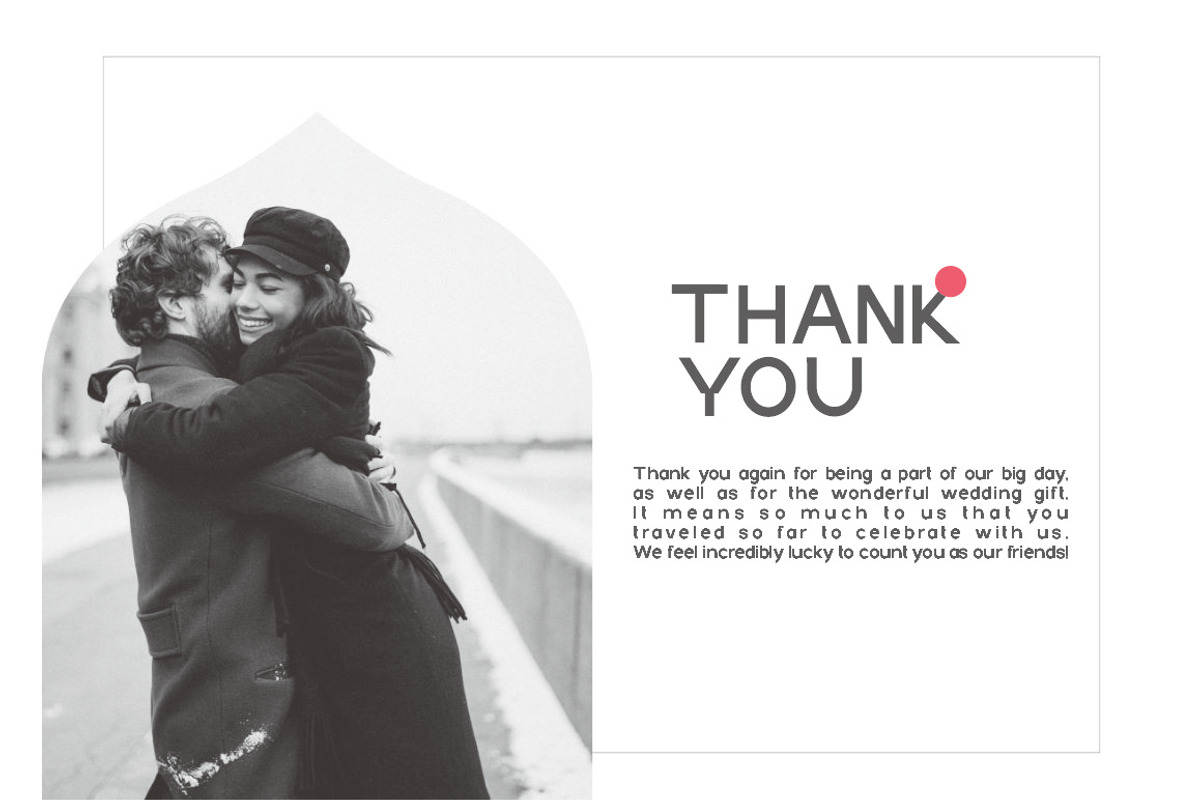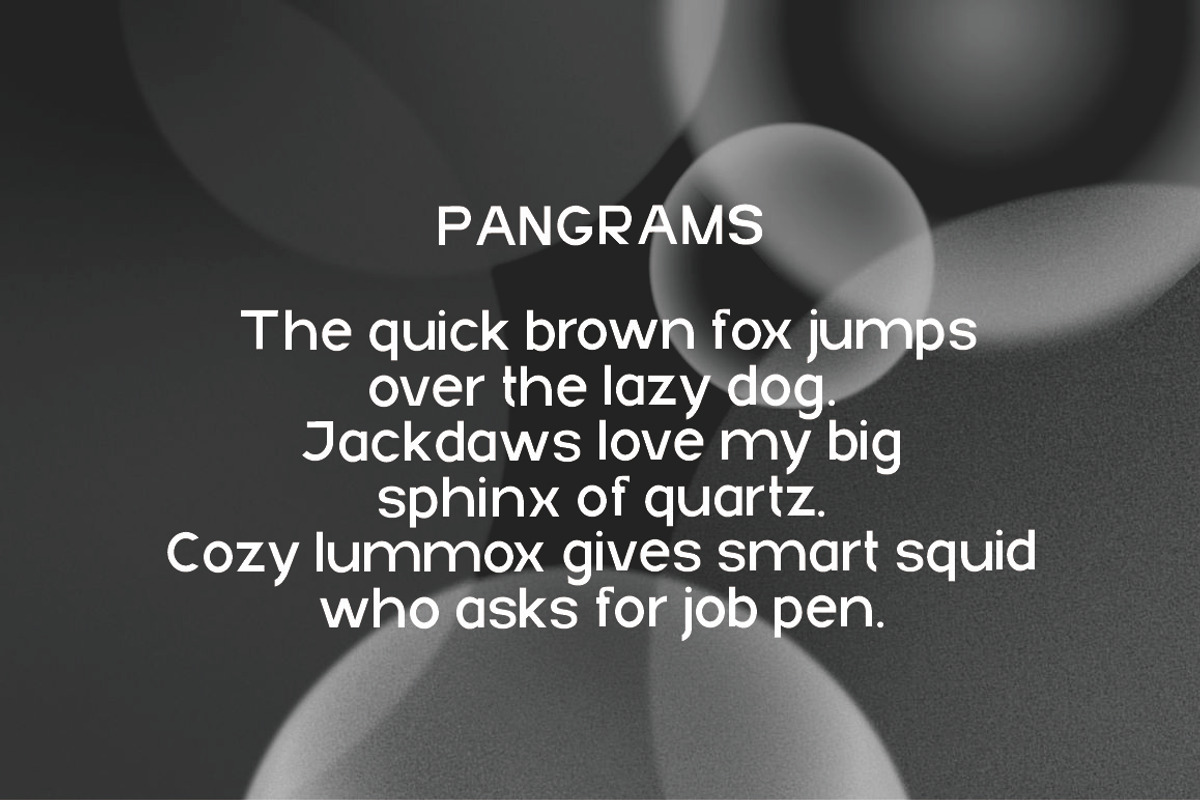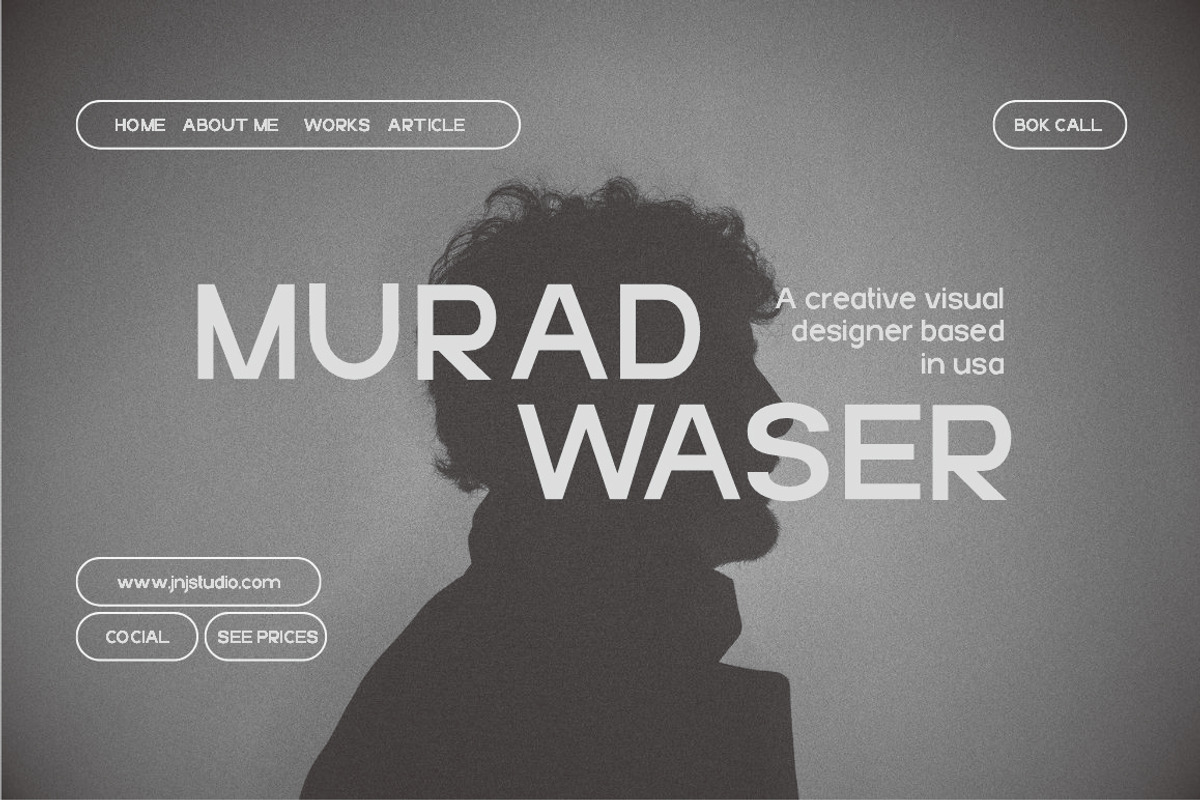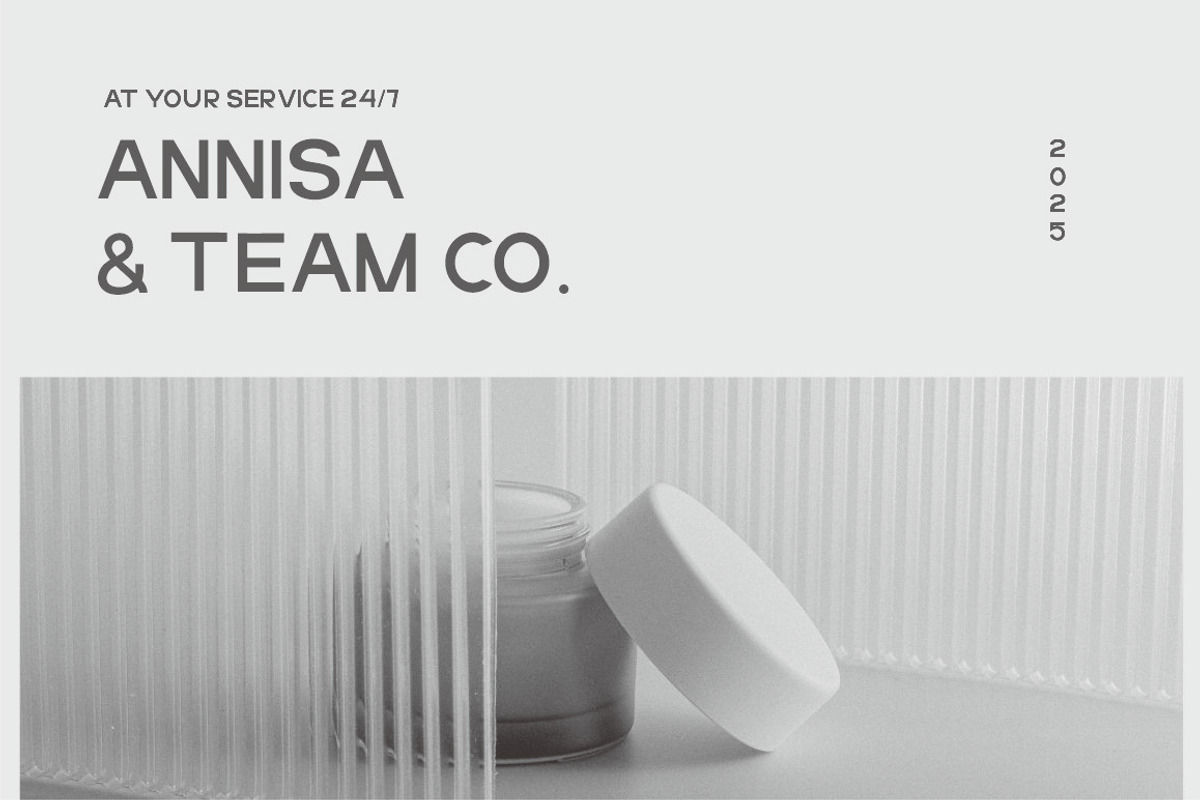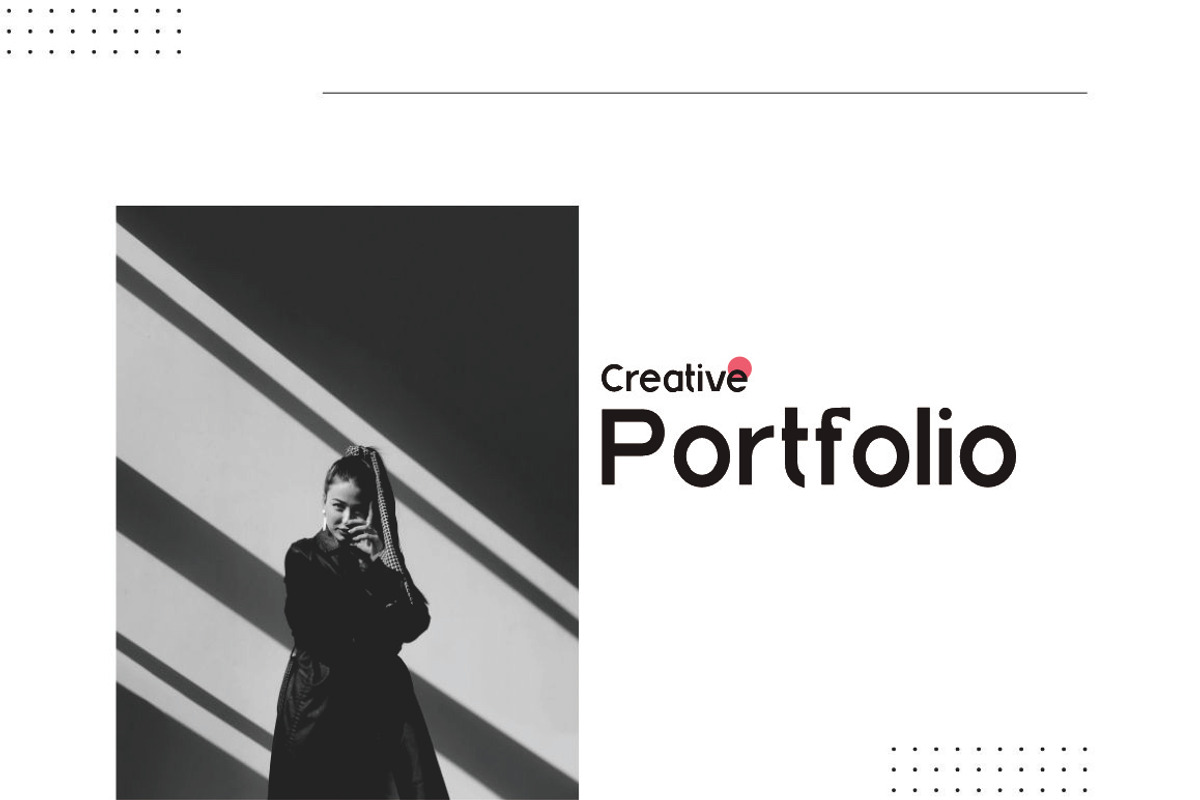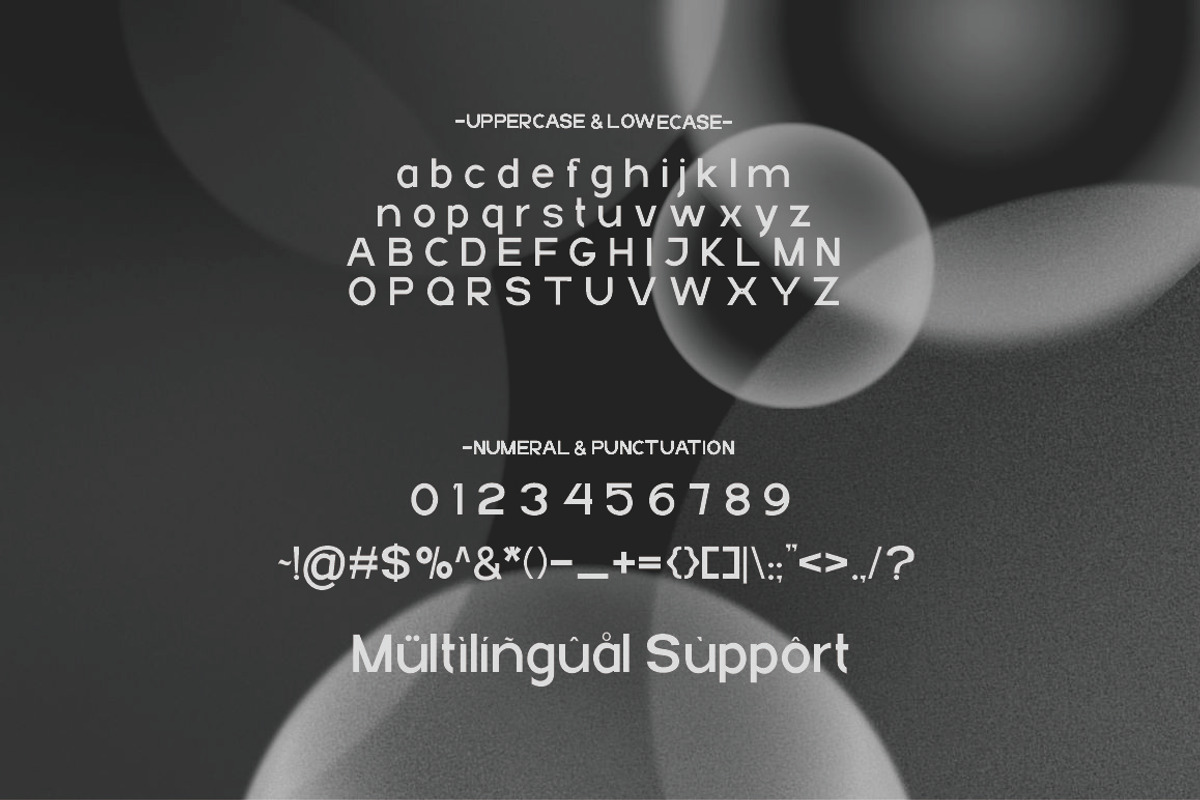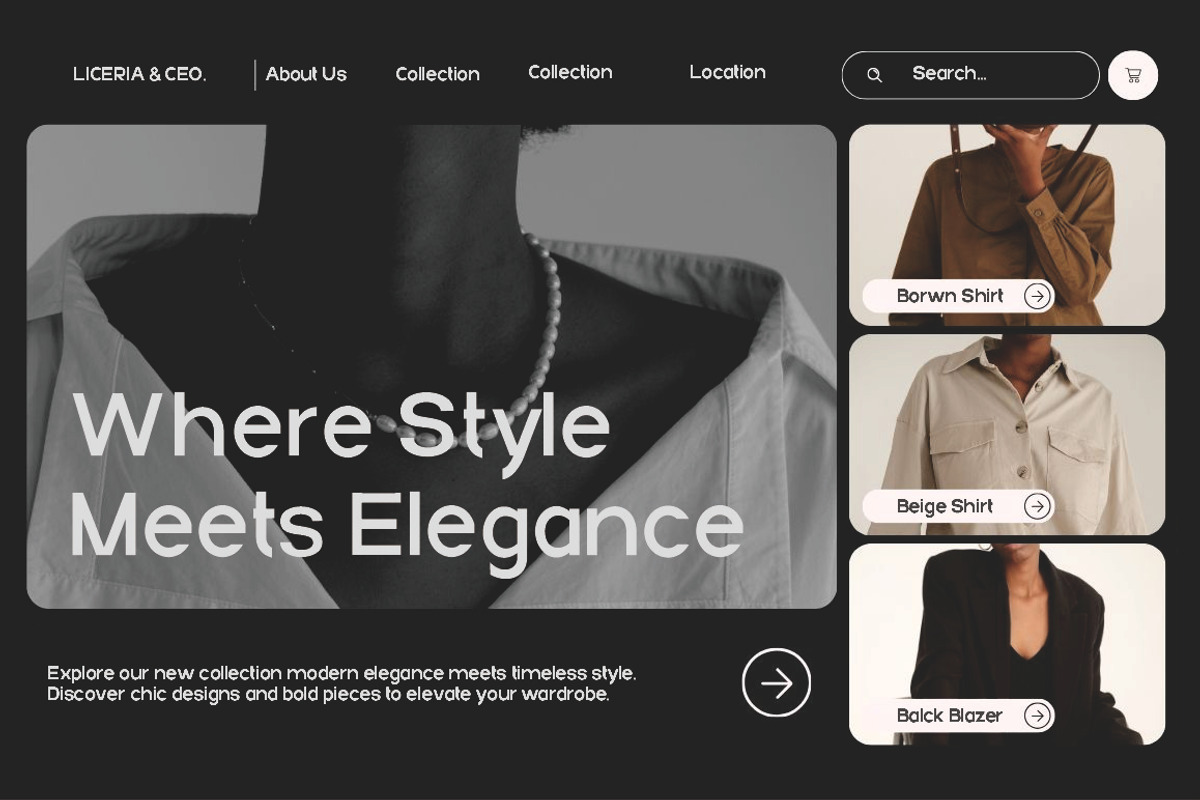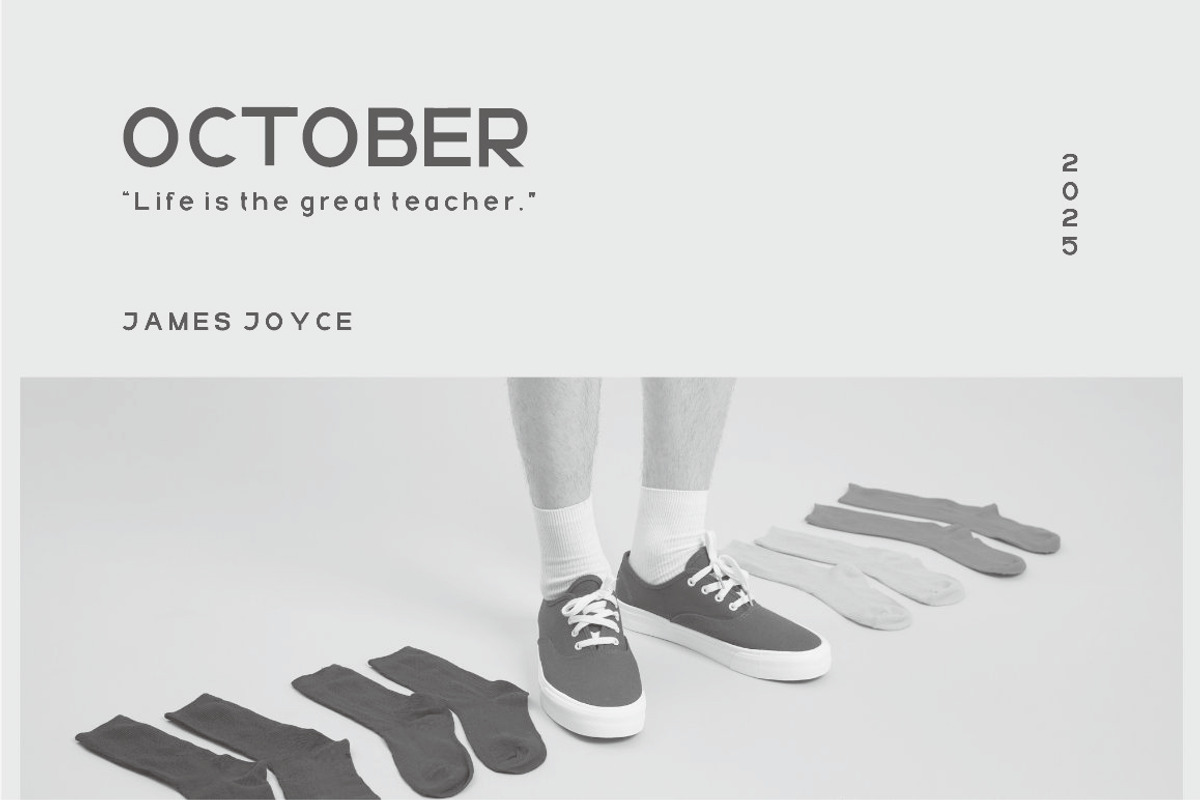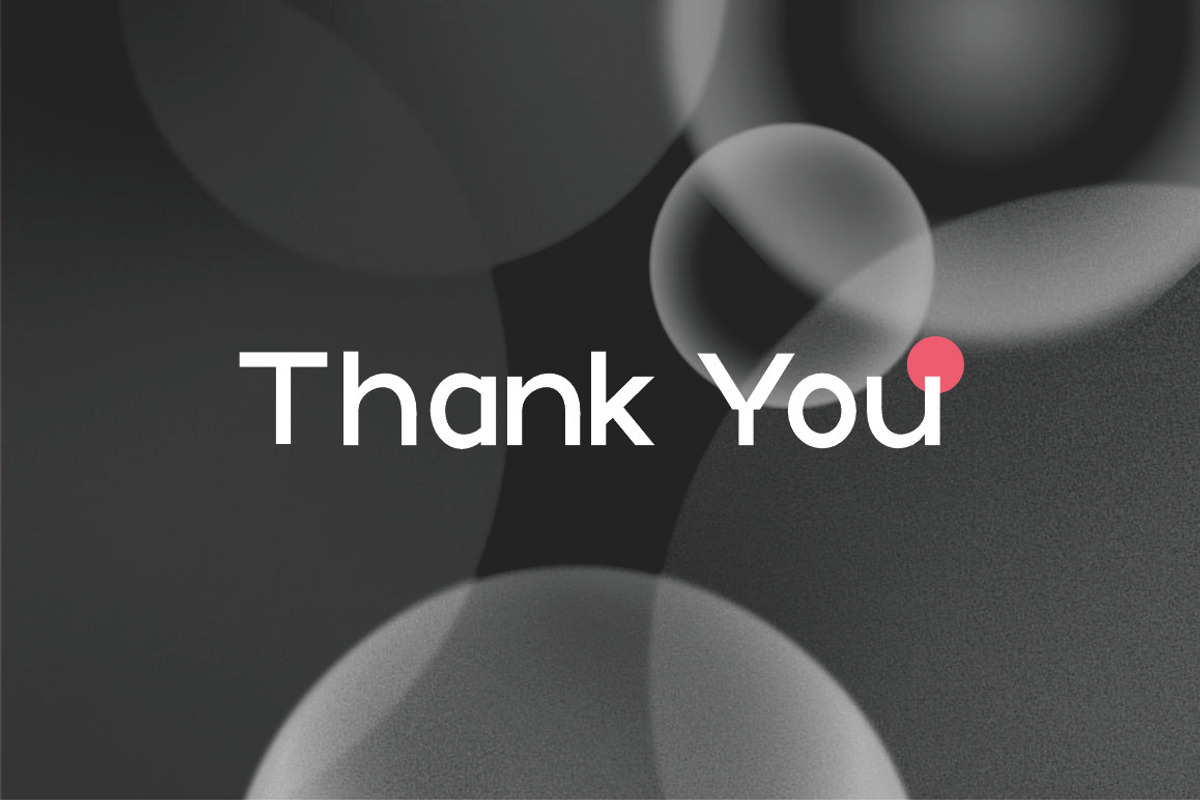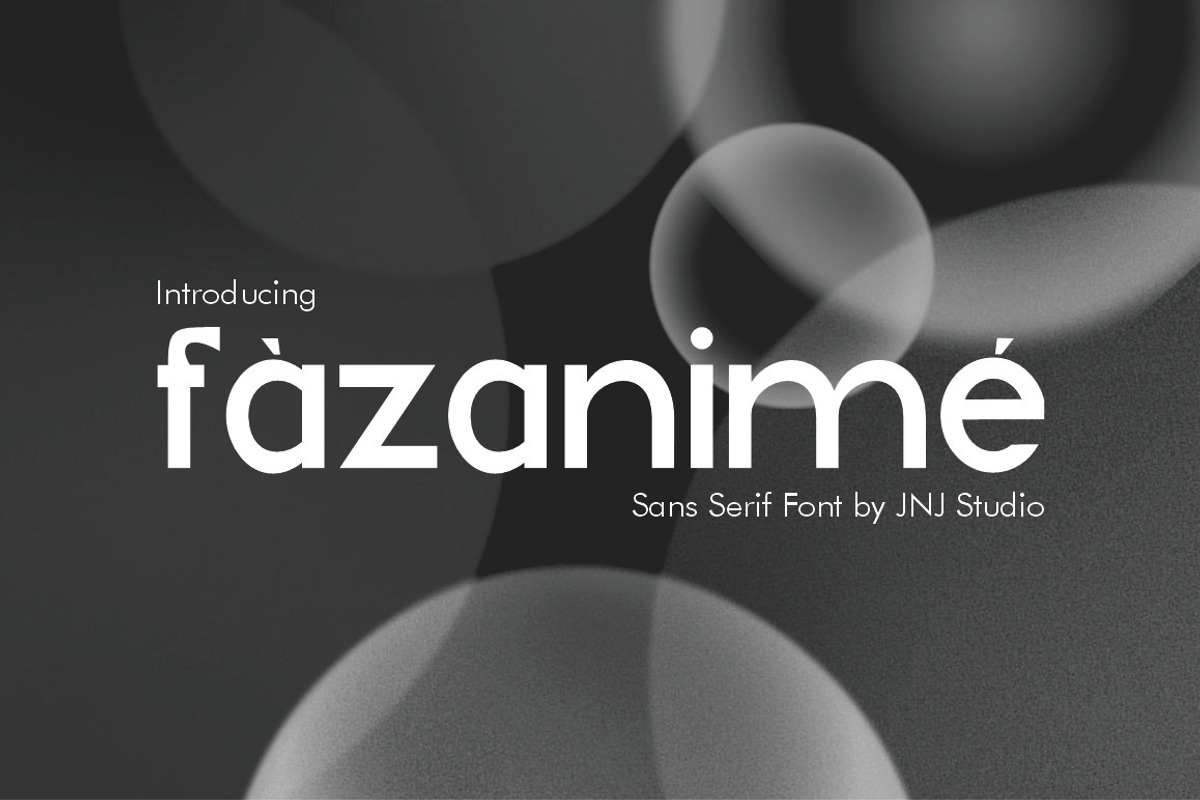
Fazanime Sans Serif
Fazanime is a sleek and contemporary sans serif font designed for versatility and readability. With clean lines and balanced proportions, this typeface is perfect for both digital and print applications. Its smooth curves and subtle geometric structure make it ideal for branding, editorial design, UI/UX, and creative projects.
Fazanime features a modern yet approachable aesthetic, offering a professional look while maintaining a friendly and engaging feel. The font includes multiple weights, from light to bold, ensuring flexibility for various design needs. Whether you're crafting headlines, body text, or logo designs, Fazanime provides clarity and elegance with a touch of modern sophistication.